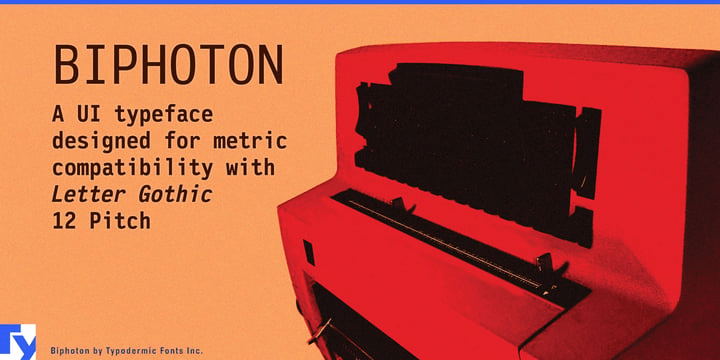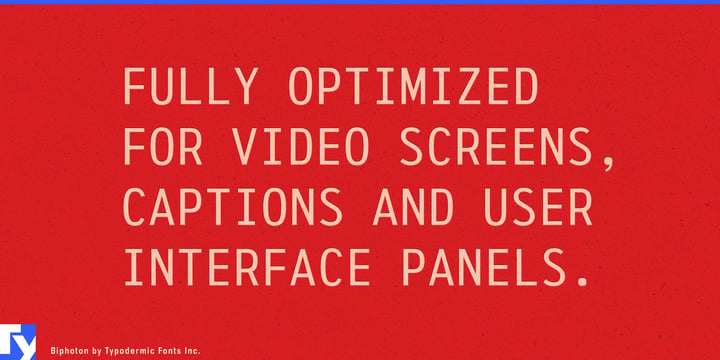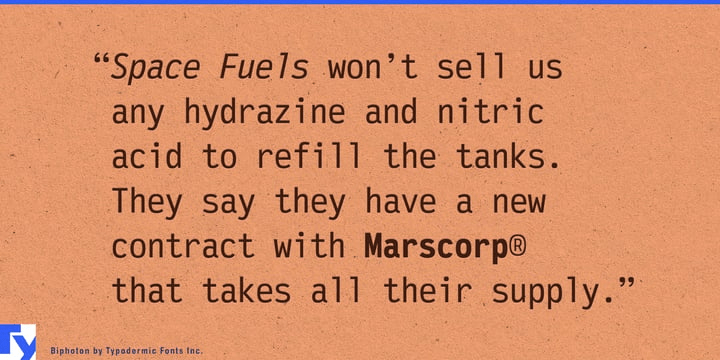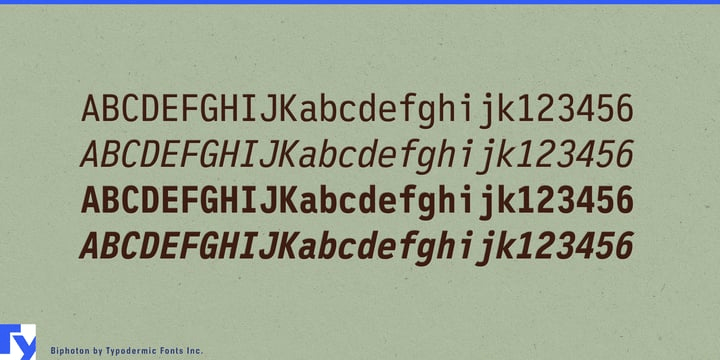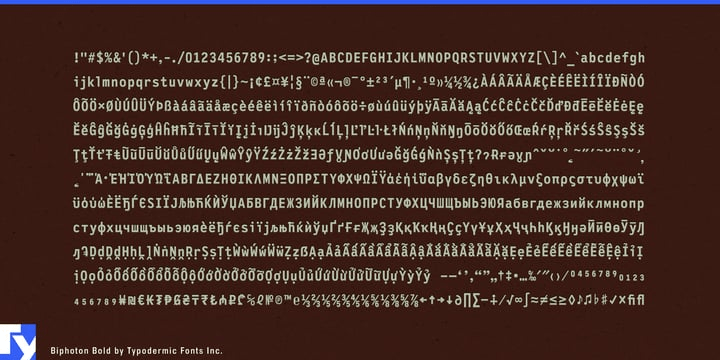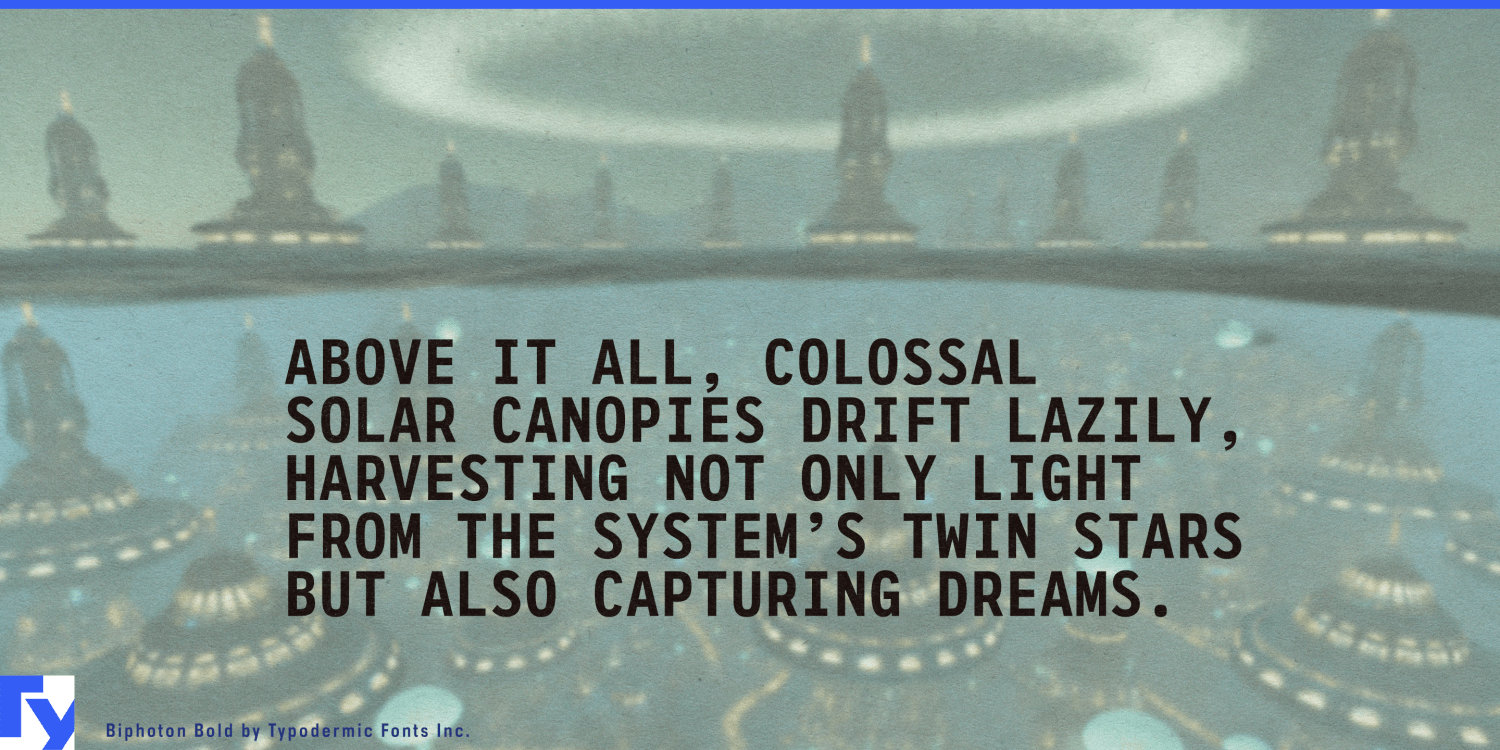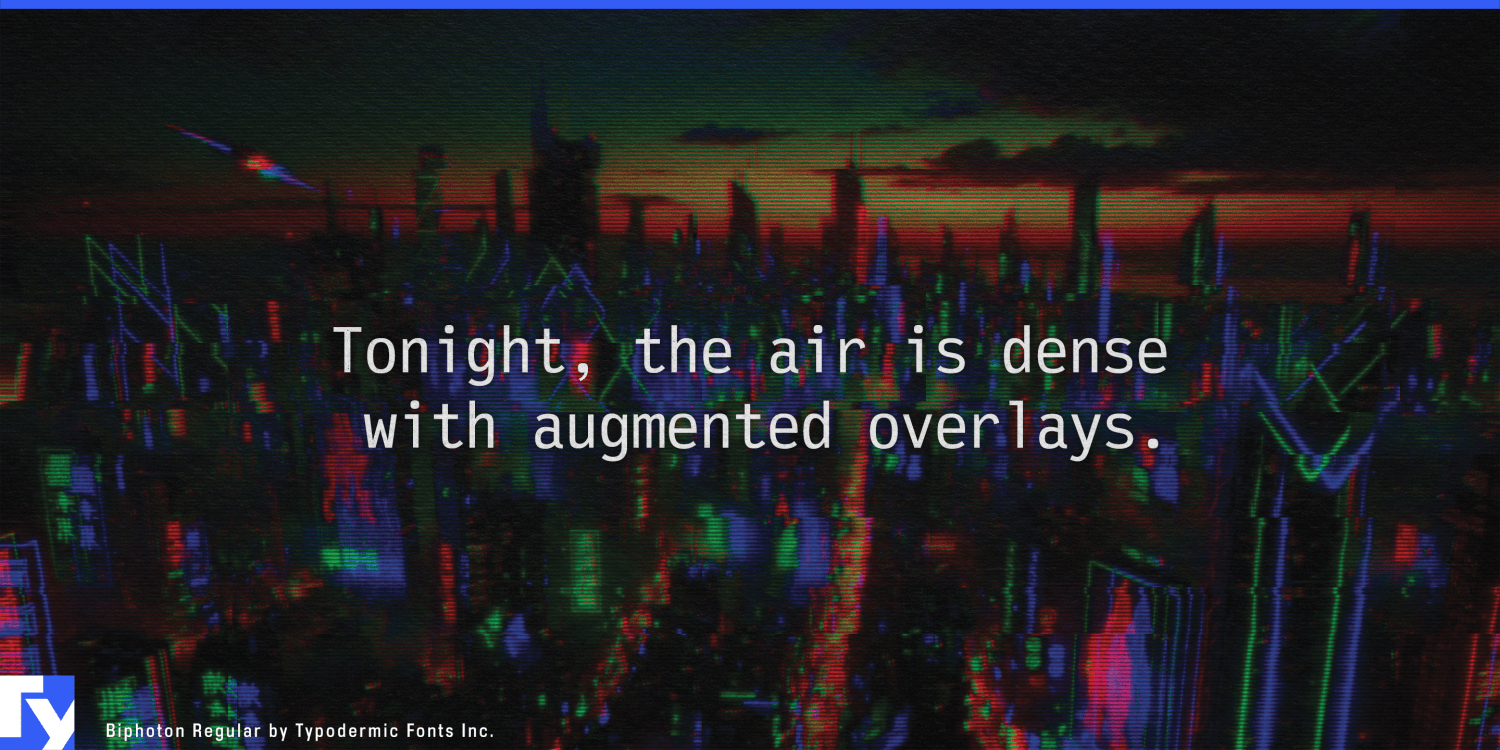
Biphoton
Font Family by Typodermic
A fixed-pitch interface can remain useful long after its typography starts showing its age. Replacing the typeface sounds simple until text fields change length, columns drift, captions wrap differently, and established screens need to be rebuilt around new character widths. Biphoton addresses that problem with the exact proportions of Letter Gothic 12 Pitch, providing a screen-oriented monospaced sans serif that can step into layouts built around that familiar character grid.
That makes Biphoton especially useful when an embedded system needs a visual update without disturbing its architecture. Hotel television systems, airline seat-back entertainment, set-top boxes, streaming hardware and other media devices can use it for program information, subtitle panels, source selectors, setup menus, diagnostics and status messages. It preserves the orderly rhythm of fixed-pitch typography while replacing Letter Gothic’s office-machine character with forms drawn for contemporary displays.
Captioning is a natural part of that job. Biphoton can handle closed captions, subtitle tracks, speaker identification, caption-preview windows and accessibility menus where predictable line length and stable character spacing matter. Its stroke widths were balanced for clarity under low-resolution conditions, and its spacing remains steady across weights and italics.
Professional AV and broadcast equipment provide another practical role. Video processors, streaming encoders, signal monitors, network appliances and control hardware regularly display input names, channel numbers, timecodes, IP addresses, signal formats, frame rates, connection states and error messages. Biphoton can occupy that live-data layer while a company’s regular corporate sans handles navigation and branding.
The same approach suits EV charging equipment, battery-management displays, laboratory instruments, environmental monitors and industrial control panels. Voltage, temperature, elapsed time, operating modes, units and fault codes benefit from characters that do not shift surrounding information whenever a value changes. Biphoton supplies that mechanical regularity without resorting to a retro terminal or programmer-font aesthetic.
For entertainment design, those functional qualities can lend credibility to spacecraft telemetry, robotics displays, surveillance interfaces, near-future control rooms and game HUDs. Biphoton also includes currency symbols, numeric ordinals, primes and precomposed fractions useful in captions, measurements, menus and technical readouts, with support extending through Latin, Cyrillic, Greek and Vietnamese.